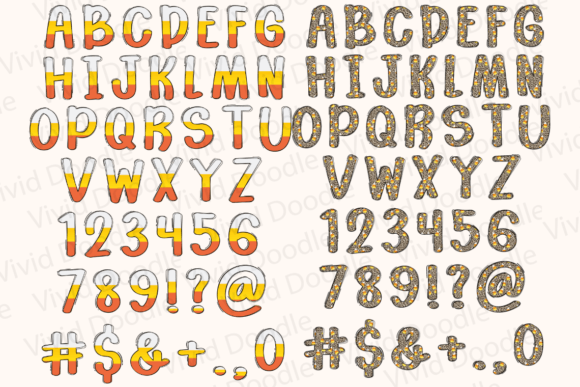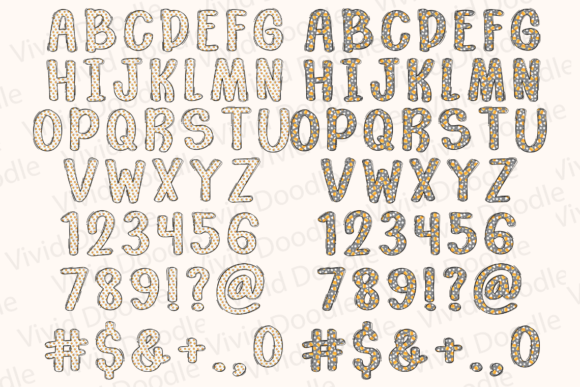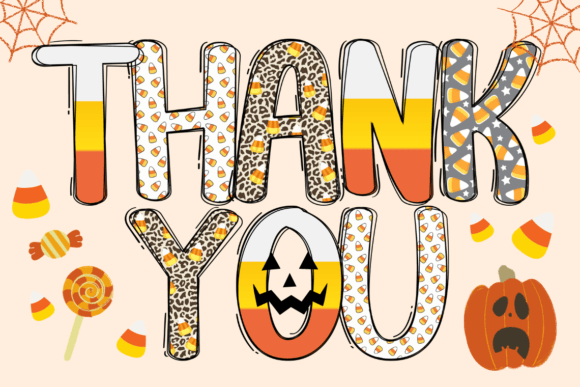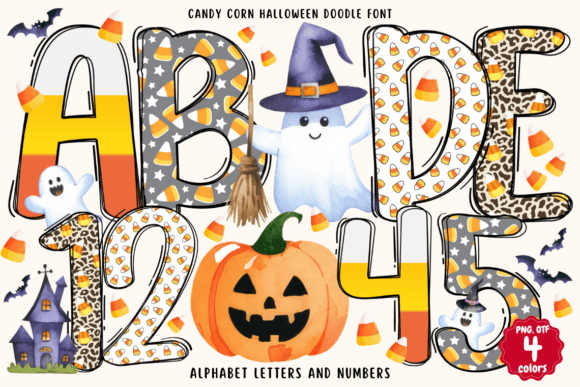
Candy Corn Halloween Doodle Font: Add a Spooky Sweet Touch to Your Designs
Are you ready to infuse your Halloween designs with a dash of whimsy and fun? Look no further than the Candy Corn Halloween Doodle Font! This delightful, handwritten typeface is inspired by the sweet, festive spirit of Halloween, making it perfect for a wide range of creative projects. From school assignments to holiday posters, and from craft art to graphic design, this font is sure to bring a smile to your face and a touch of seasonal charm to your work.
The Inspiration Behind the Font
The Candy Corn Halloween Doodle Font is a playful and quirky typeface that captures the essence of Halloween’s sweetest treats. The font features playful doodles and candy corn accents, carefully crafted to evoke the festive and fun atmosphere of the spookiest time of the year. Whether you’re designing invitations, decorating for Halloween, or creating festive holiday materials, this font is the perfect choice to add a touch of whimsy and personality to your projects.
The Candy Corn Halloween Doodle Font is incredibly versatile, making it suitable for a wide range of applications. Here are just a few ideas to get you started:
• Halloween-themed party invitations and decorations
• School projects and presentations
• Holiday posters and flyers
• Craft art and DIY projects
• Graphic design and digital art
Bring the Spooky Season to Life
Key Features of the Candy Corn Halloween Doodle Font
• Fun and quirky handwritten typeface
• Inspired by the sweet, festive spirit of Halloween
• Features playful doodles and candy corn accents
• Perfect for Halloween-themed designs and projects
In conclusion, the Candy Corn Halloween Doodle Font is a must-have for designers, crafters, and anyone looking to add a touch of whimsy and fun to their Halloween designs. With its playful and quirky design, this font is sure to bring a smile to your face and a touch of seasonal charm to your projects. So don’t miss out on this amazing opportunity to elevate your designs and make this Halloween one to remember!